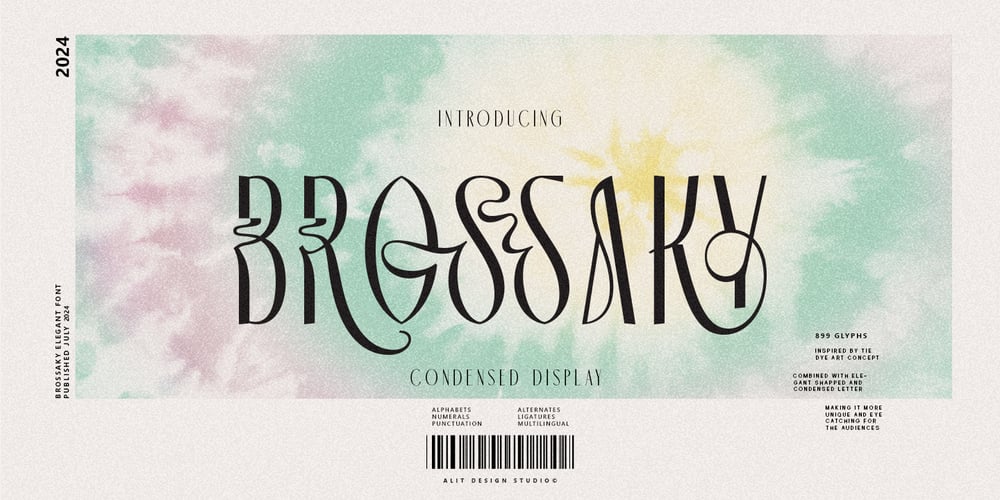
Brossaky
Brossaky font
Brossaky Font Family was designed by Alit Suarnegara and published by Alit Design. Brossaky contains 1 styles and family package options. Brossaky TypefaceIntroducing Brossaky Typeface, a modern sans serif font designed to elevate your projects with its sleek and stylish characters. This unique typeface features elegant ribbon-like alternatives that add a touch of sophistication to any design. Perfect for branding, web design, advertising, and more, Brossaky Typeface combines contemporary aesthetics with versatile functionality.Key Features: 899 Characters: Extensive character set providing a wide range of options for your creative needs. Ligatures: Enhance your typography with beautifully crafted ligatures that ensure smooth and natural text flow. Alternatives: Ribbon-like alternative characters offer distinctive flair, allowing you to customize and stand out. Multilingual Support: Comprehensive support for multiple languages, making it perfect for global projects. With Brossaky Typeface, you get the best of modern sans serif design combined with unique, eye-catching elements. Make your text stand out and leave a lasting impression with this versatile and stylish typeface.